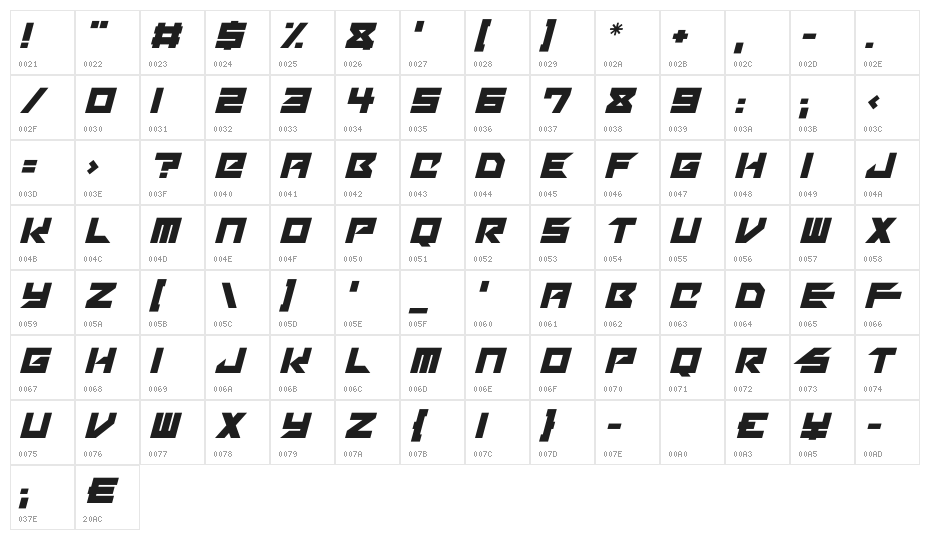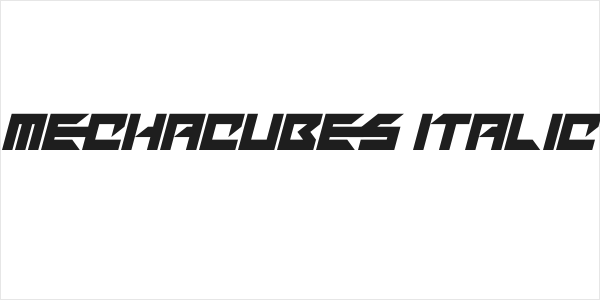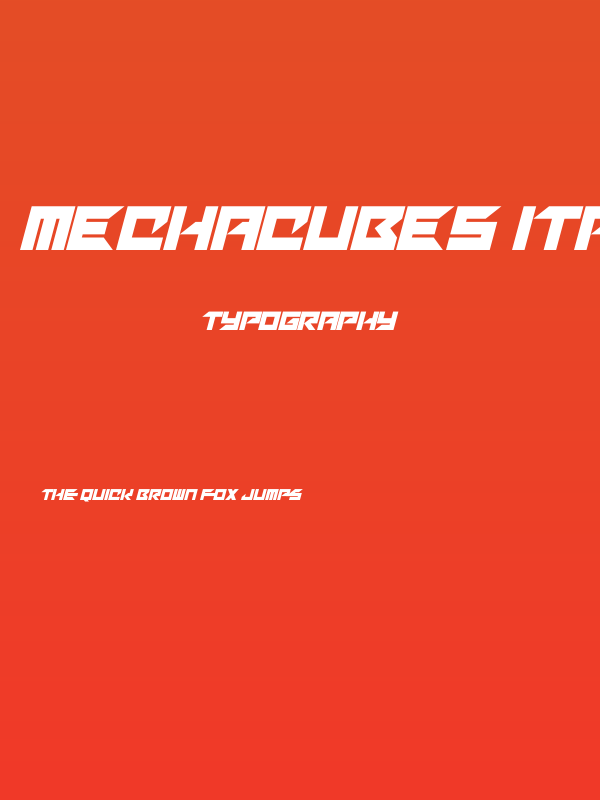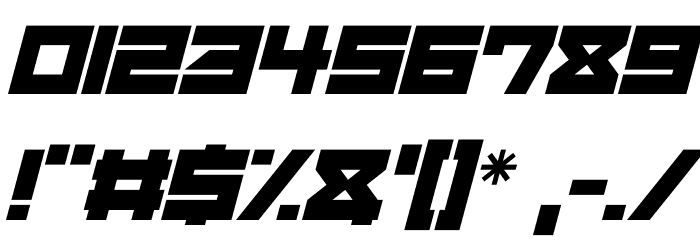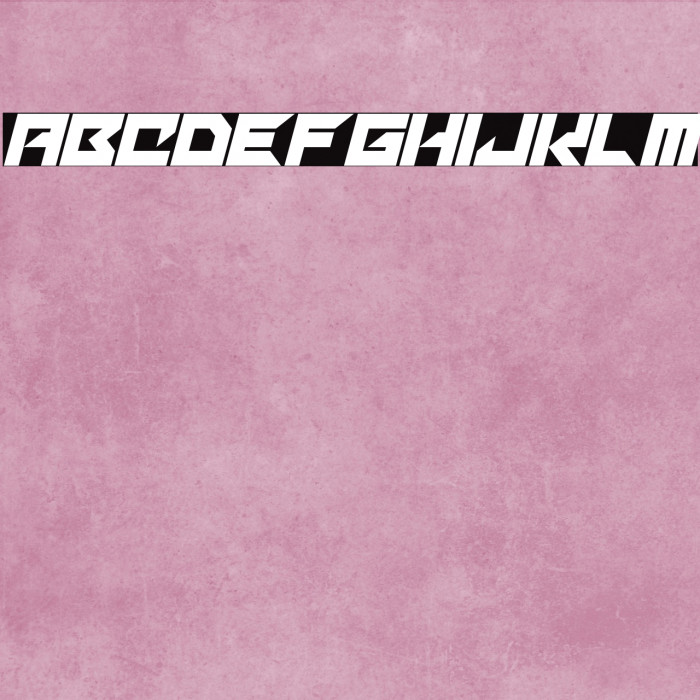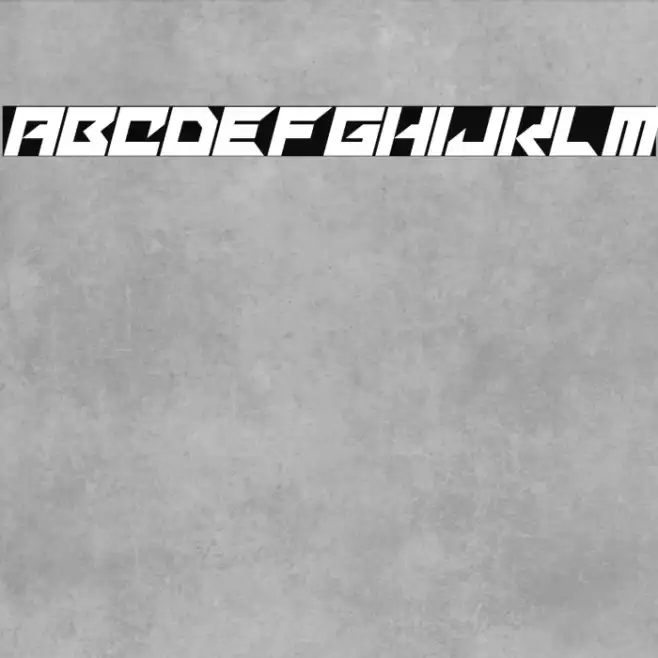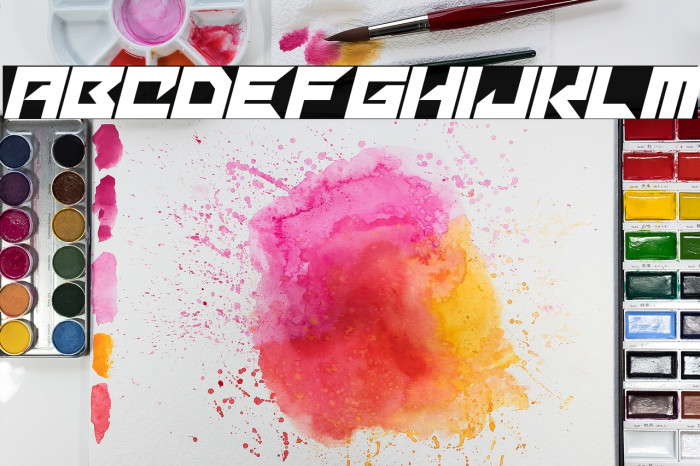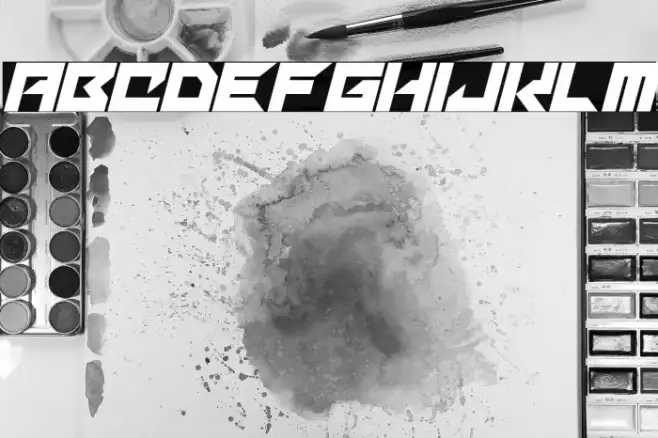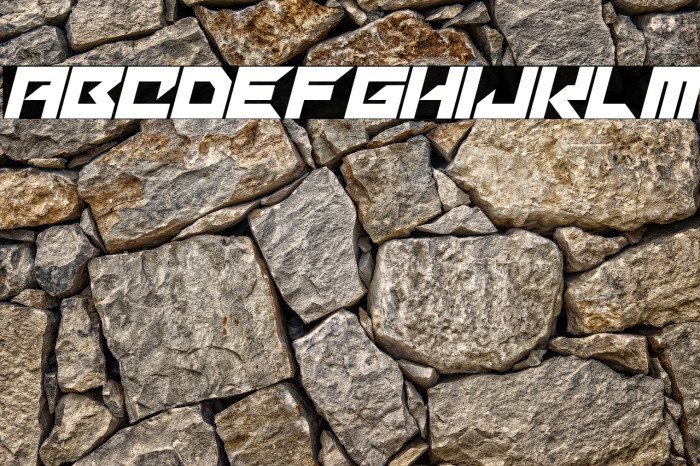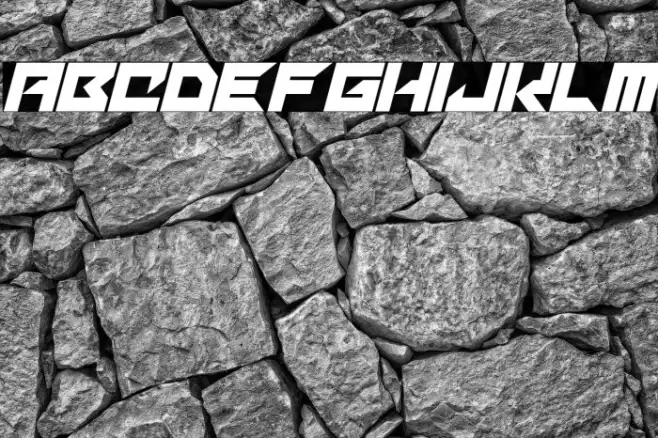
Mechacubes Italic Font
Mechacubes Italic Description
This font exhibits a bold, futuristic style with sharp, angular lines and a distinct italic slant. The characters are designed with a mechanical, geometric aesthetic, featuring strong diagonal cuts and a dynamic forward-leaning posture. The uppercase and lowercase letters maintain a consistent style, emphasizing a sense of motion and modernity. Numbers and special characters are crafted with the same angular precision, making them stand out with a unique, edgy appearance. This font is ideal for projects that require a modern, tech-inspired look, such as video game titles, sci-fi movie posters, or technology branding.
| Proposed Projects | Ideal for video game titles, sci-fi movie posters, technology branding, and modern graphic design projects. |